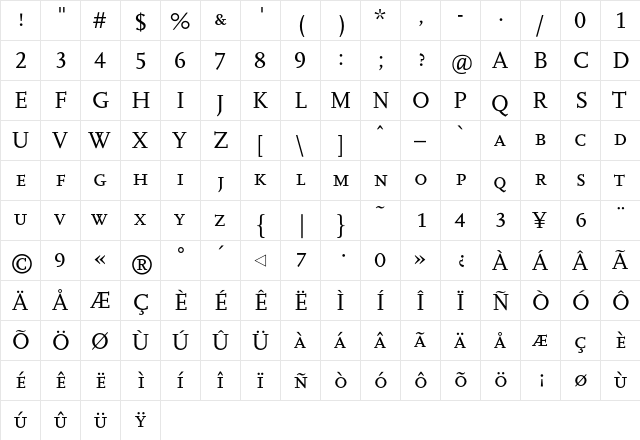
Scala Caps Regular
Design Context for Scala Caps Typeface
Scala Caps is a composed and adaptable typeface that performs quietly and consistently across a wide range of design contexts.